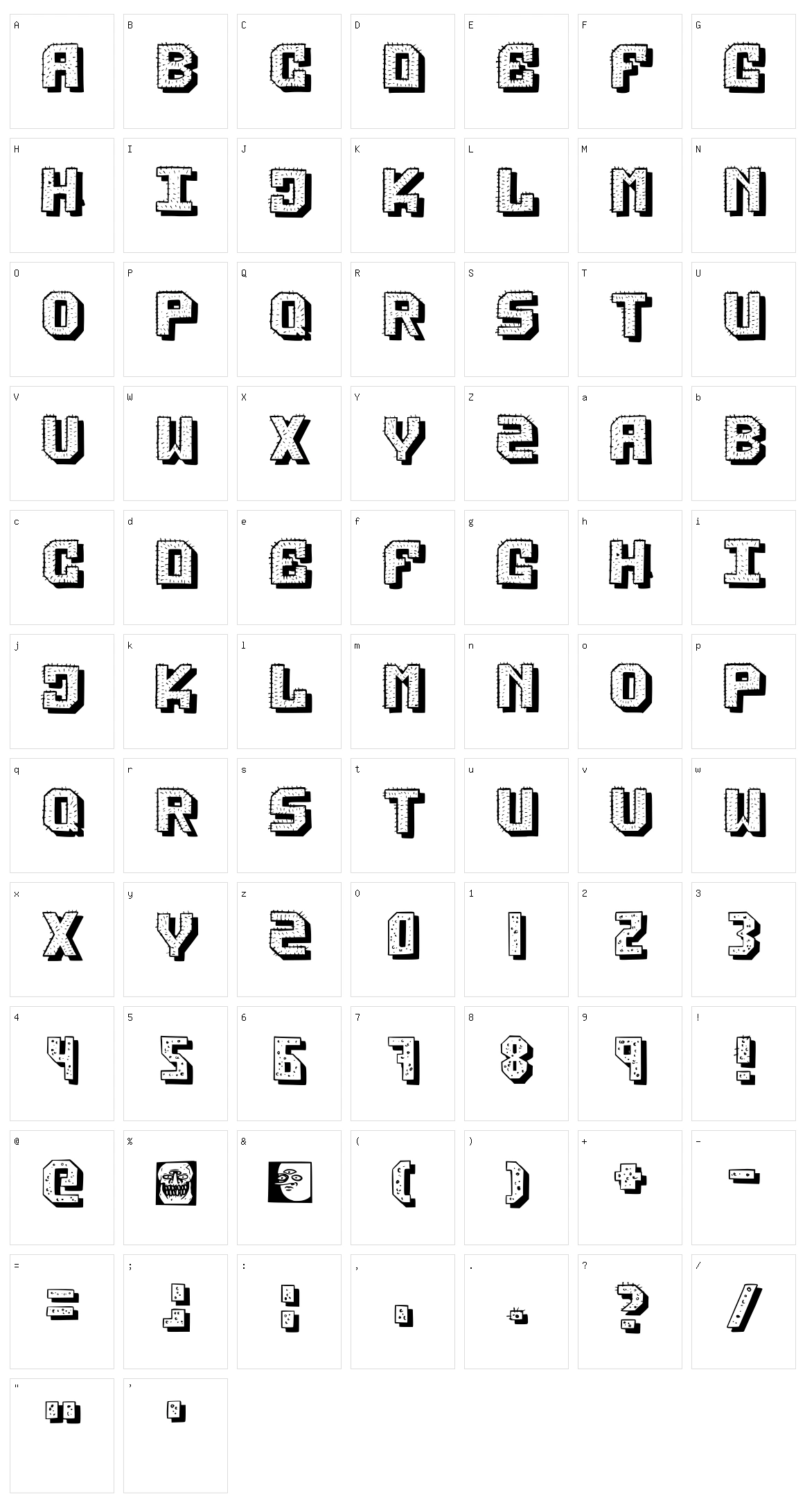
The free font Jahfont is carefully designed by Nathanon Khanijow, showcasing a thoughtful balance of creativity and usability and falls under the Cartoon font style. When you download the ZIP file, it contains only 53.86 KB of font files, making it lightweight and quick to download. Please review the license details below to understand permitted usage and distribution rights. If license information is not available, we recommend using this font for personal projects only or contacting the author directly for commercial usage permissions.